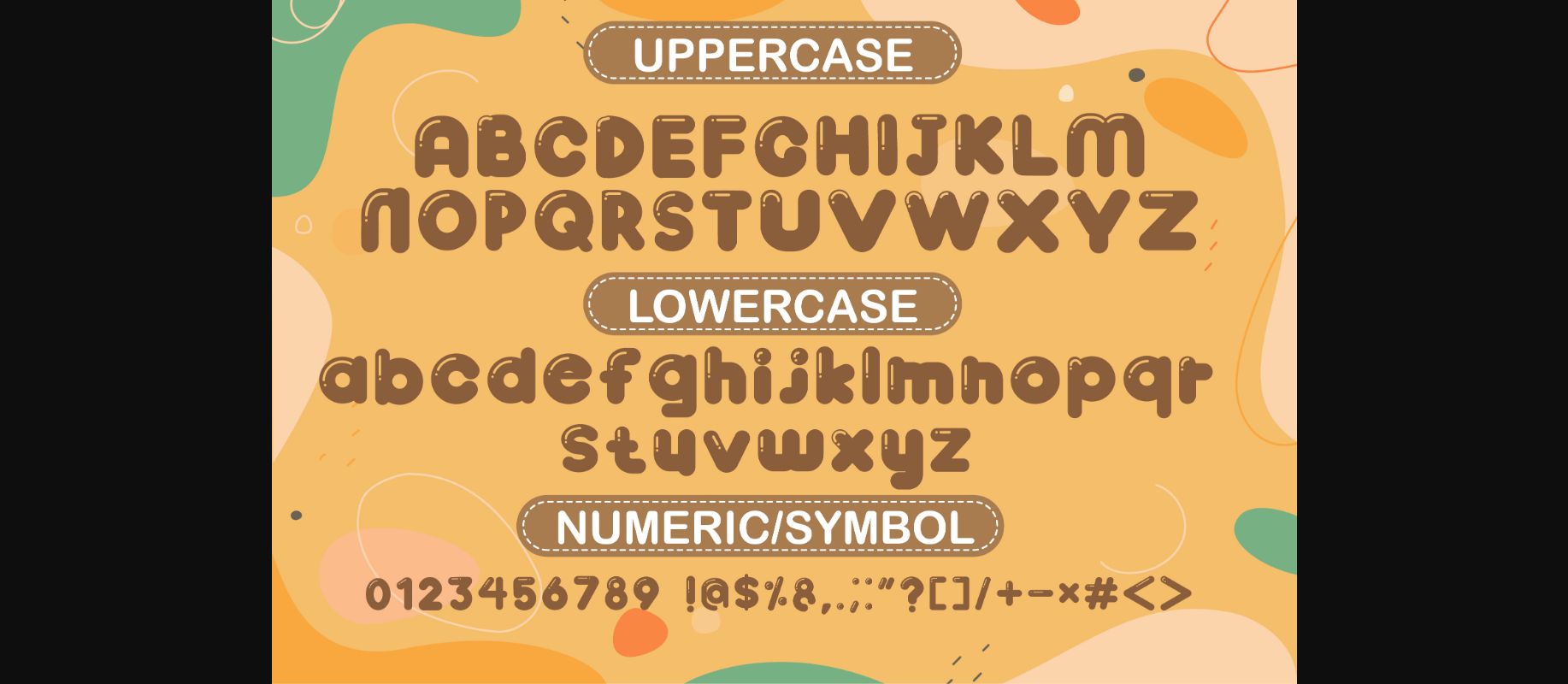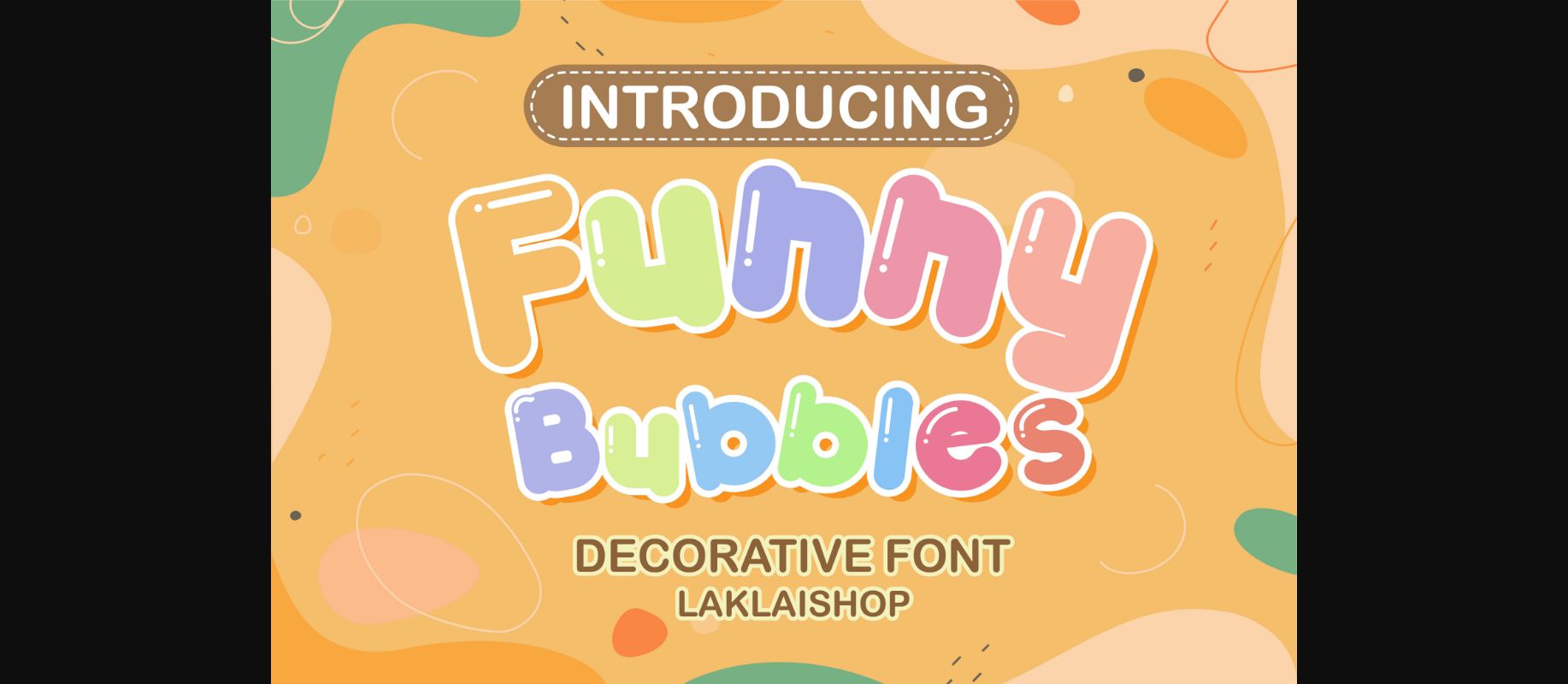
About Funny Bubbles Font
Funny Bubbles is a funny decorative font that will fill your designs with cheerfulness! Use it on covers, posters, crafty DIY projects, and anything that needs to pop! Have fun!